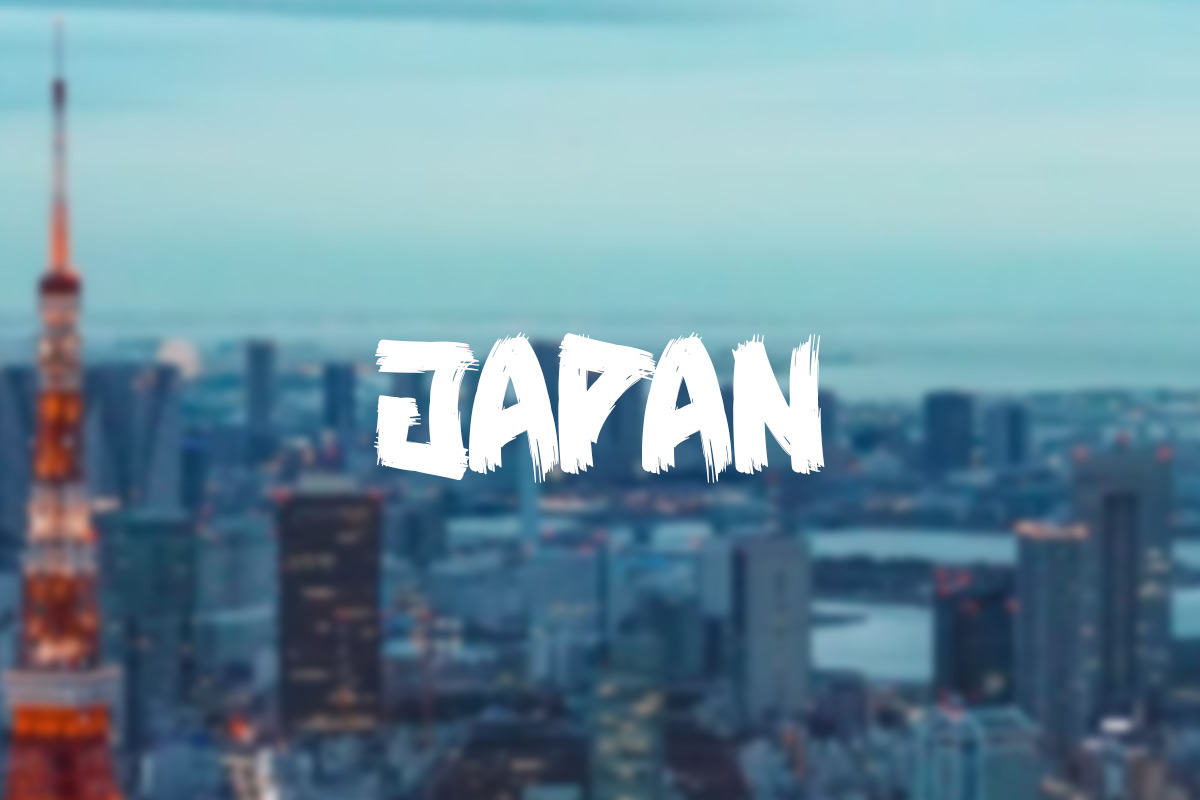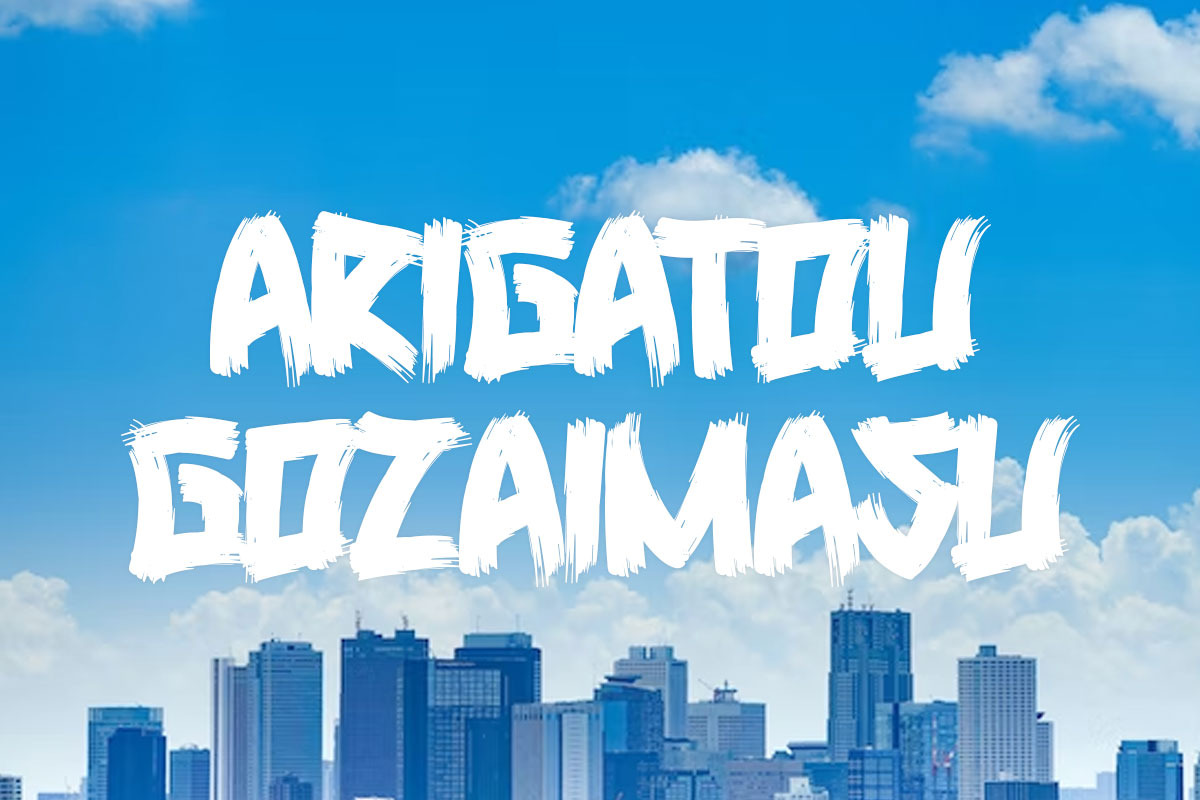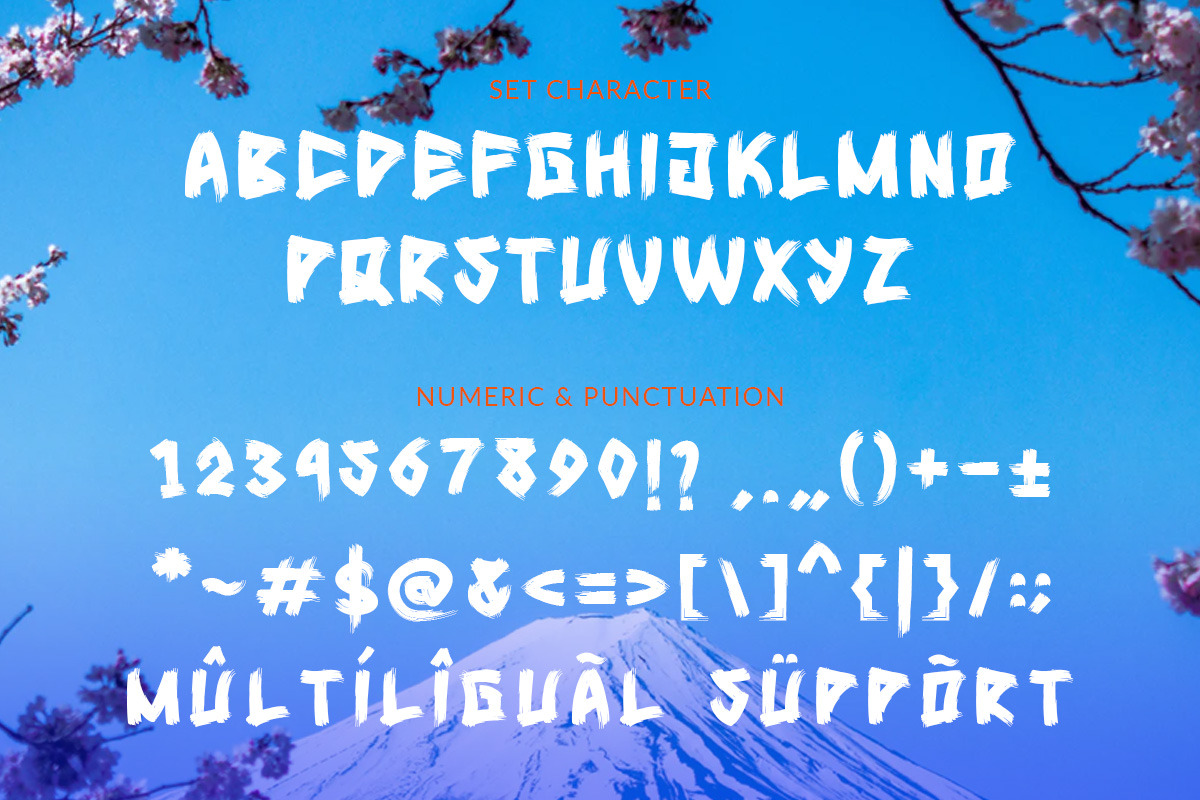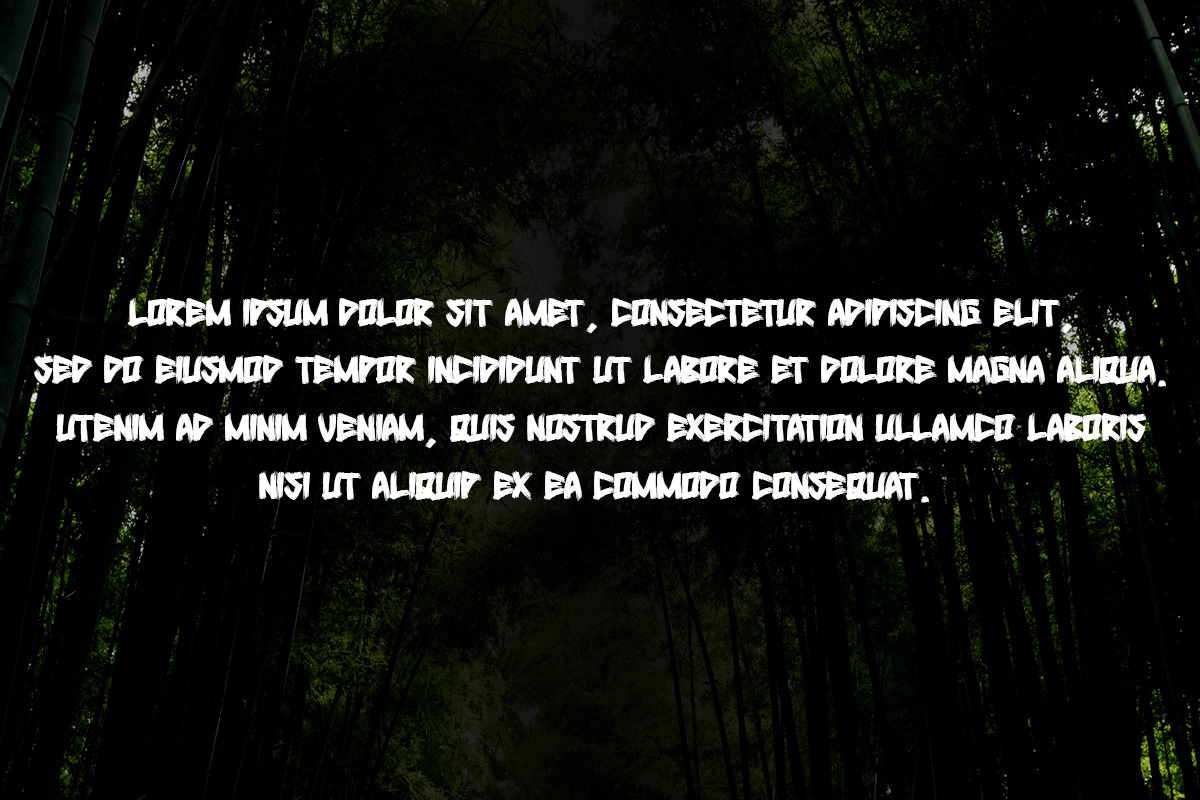
Miyoshi | Japanese Style
Miyoshi is a font made with a unique and nice Japanese brush style, this font is perfect for everything, such as wedding invitations, posters, promos, videos, pictures etc.